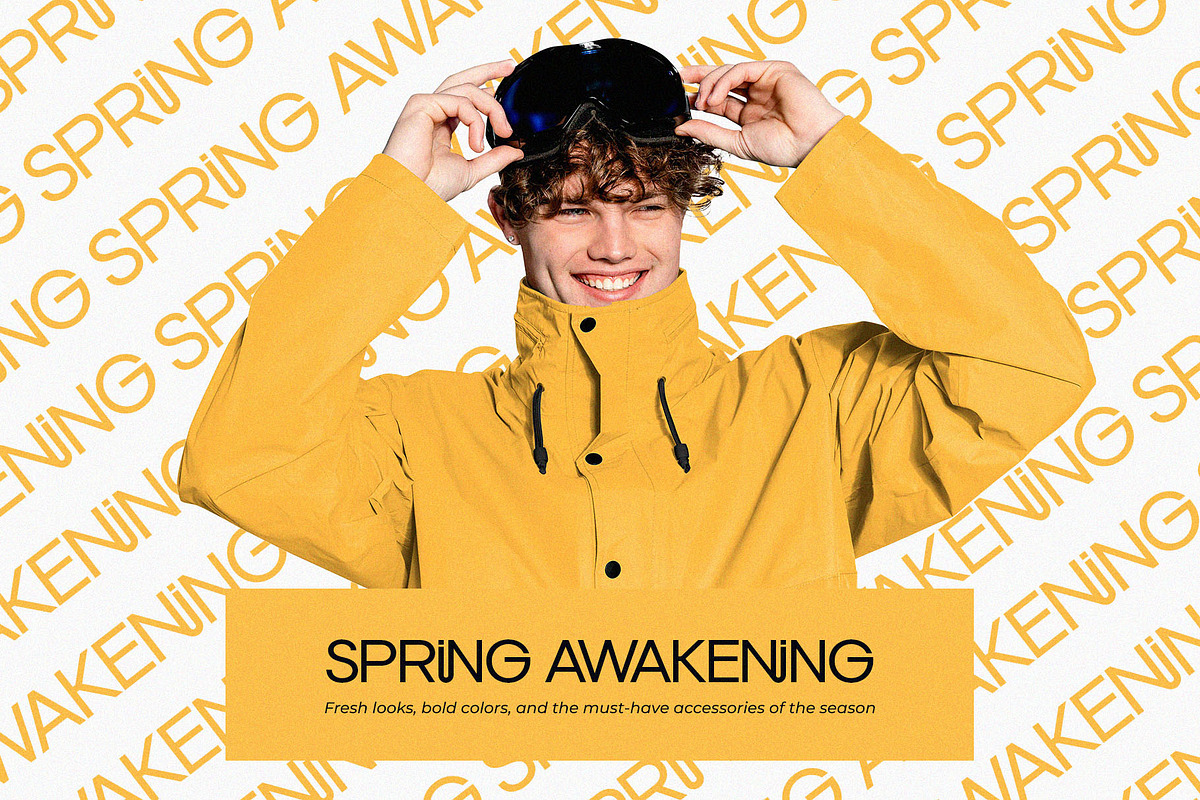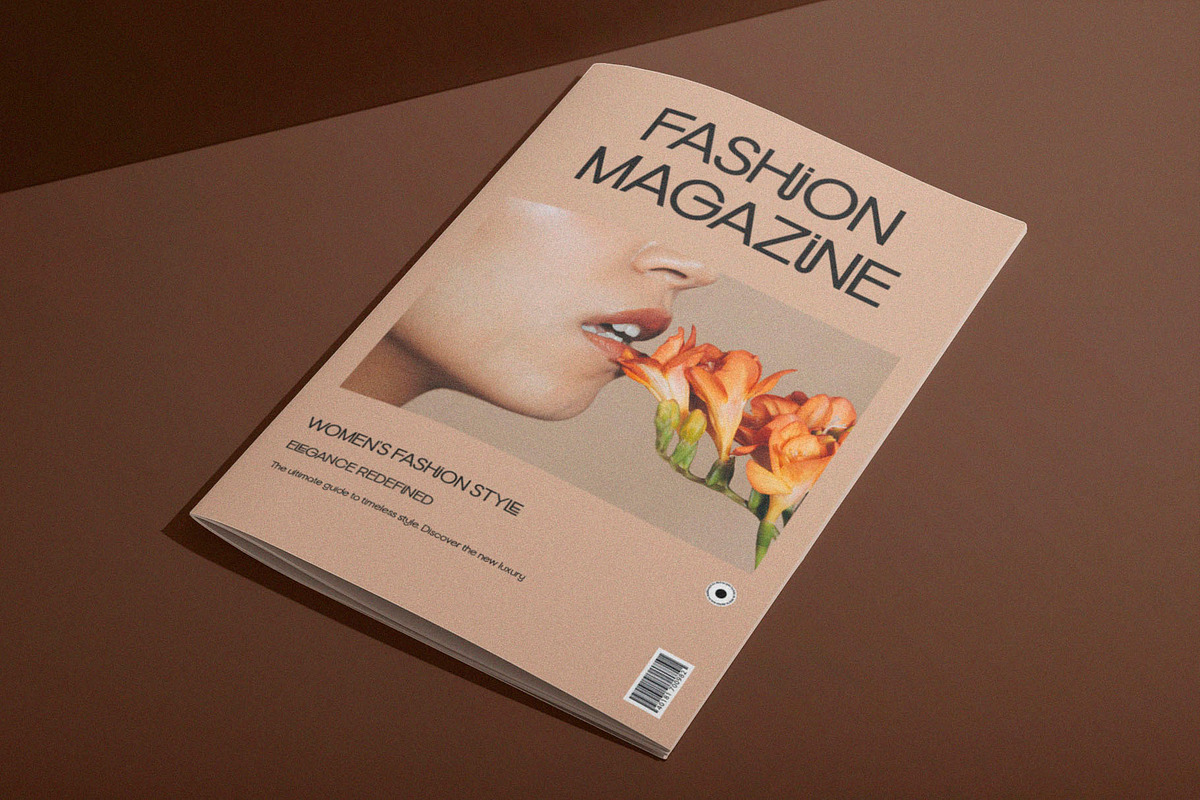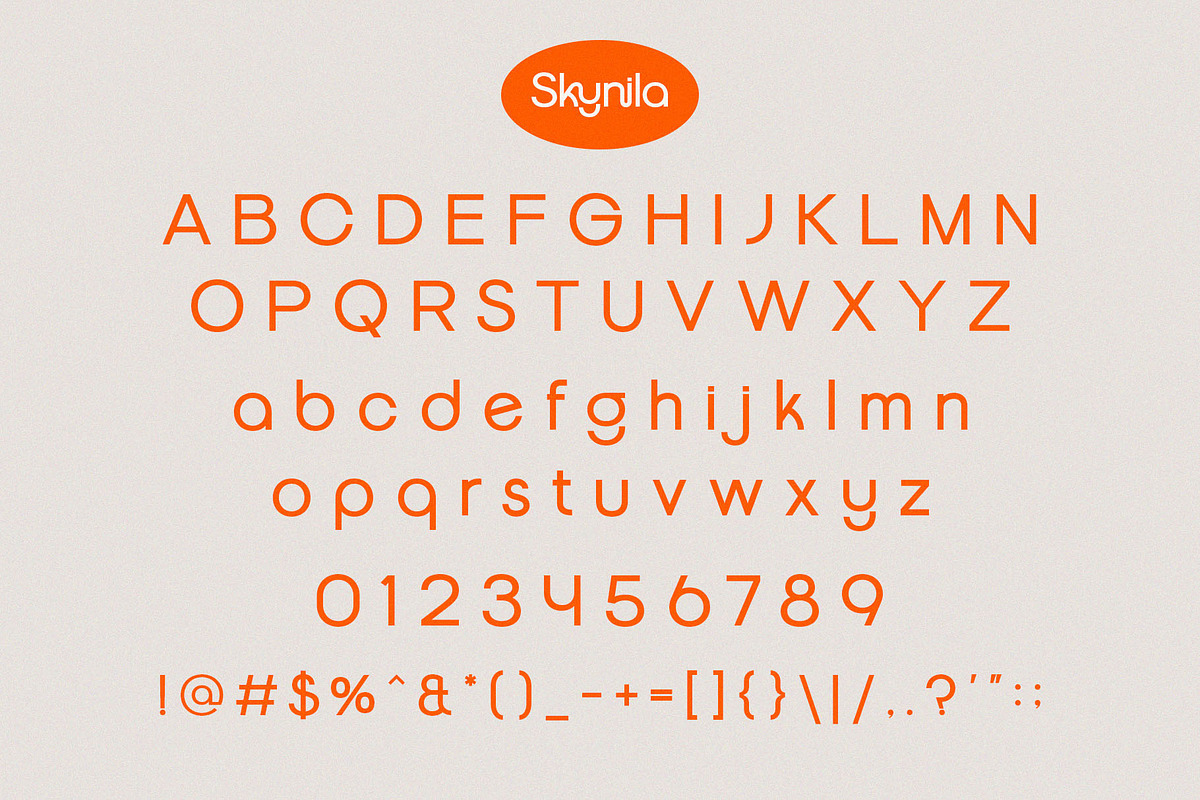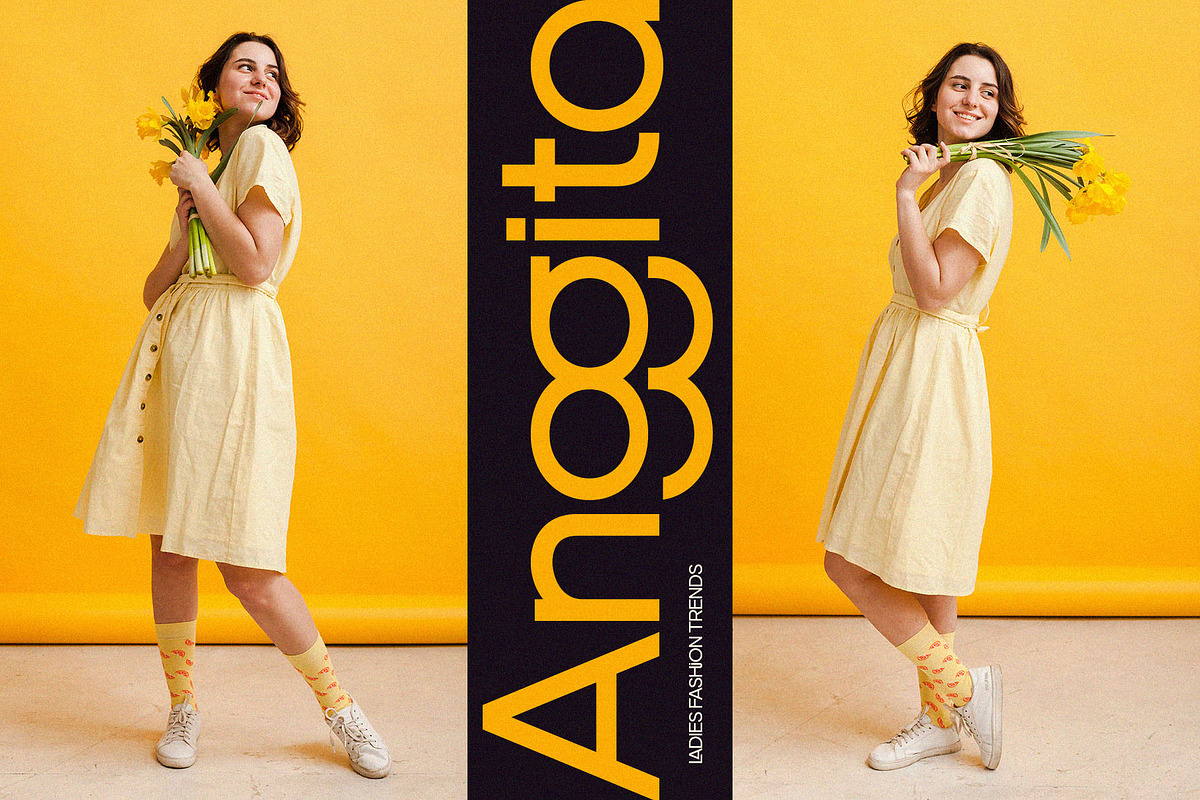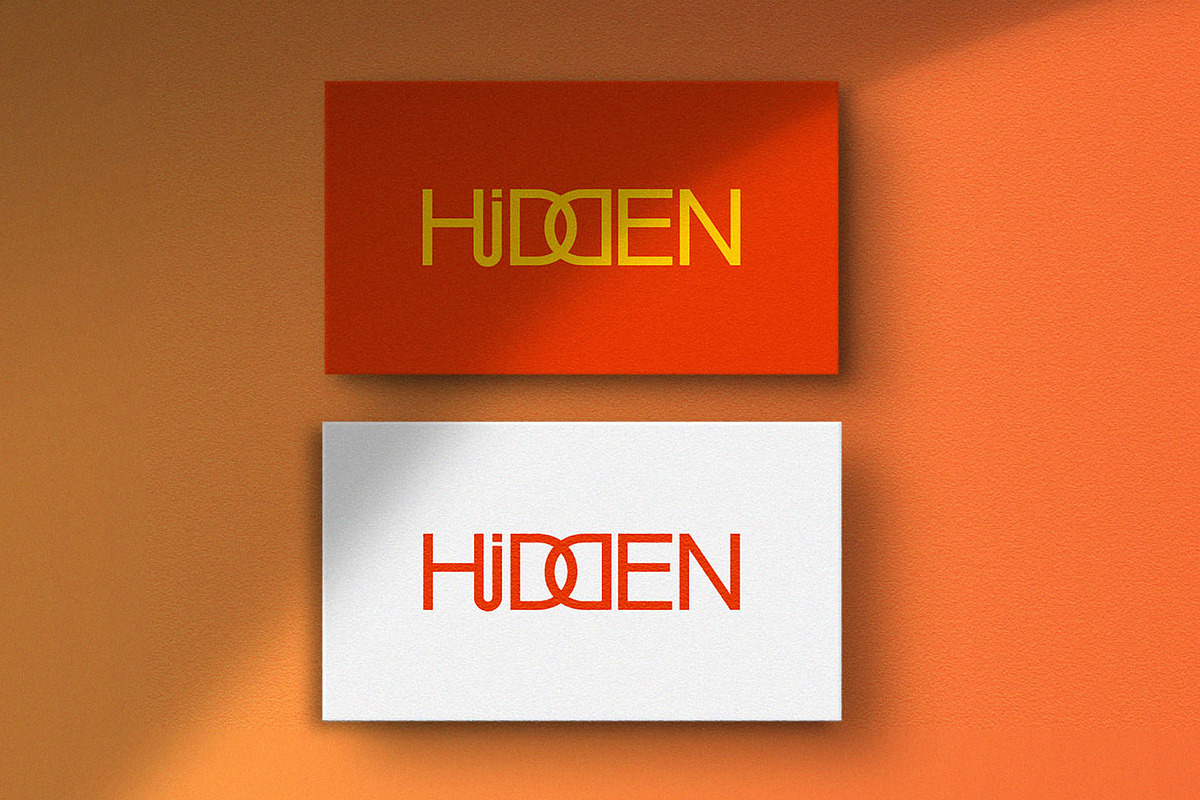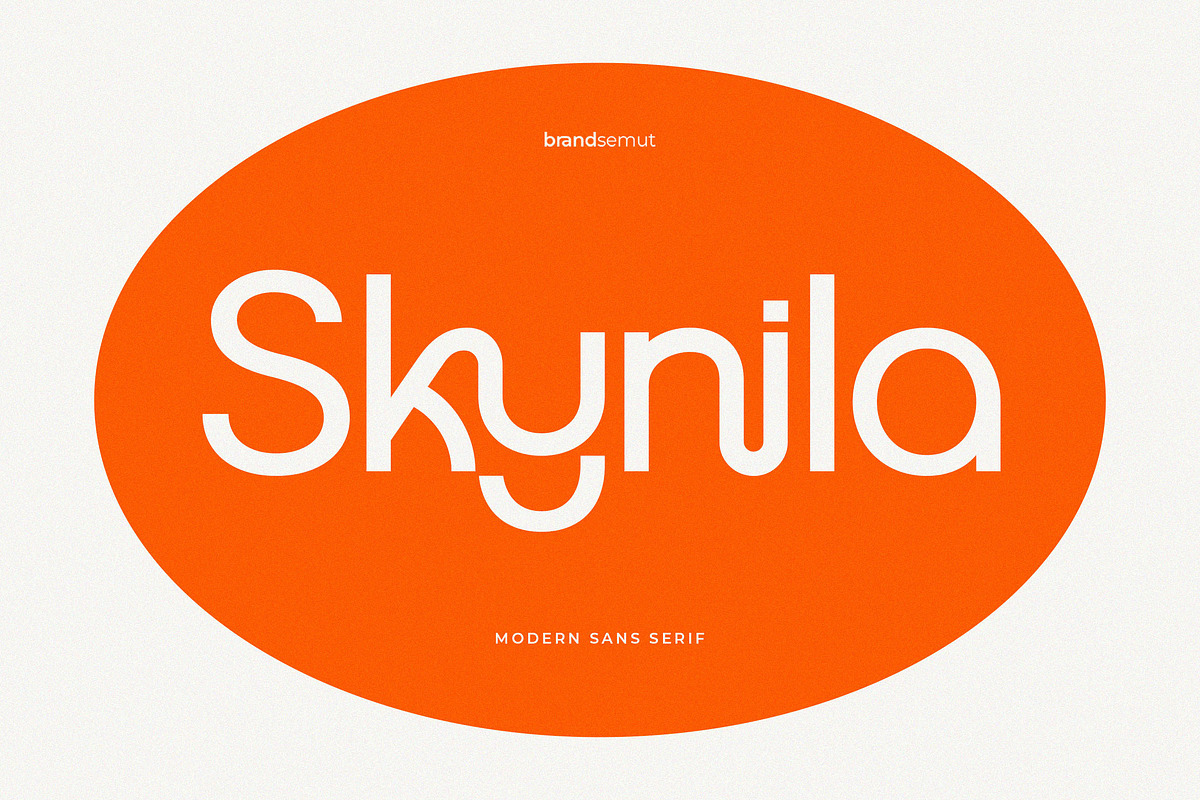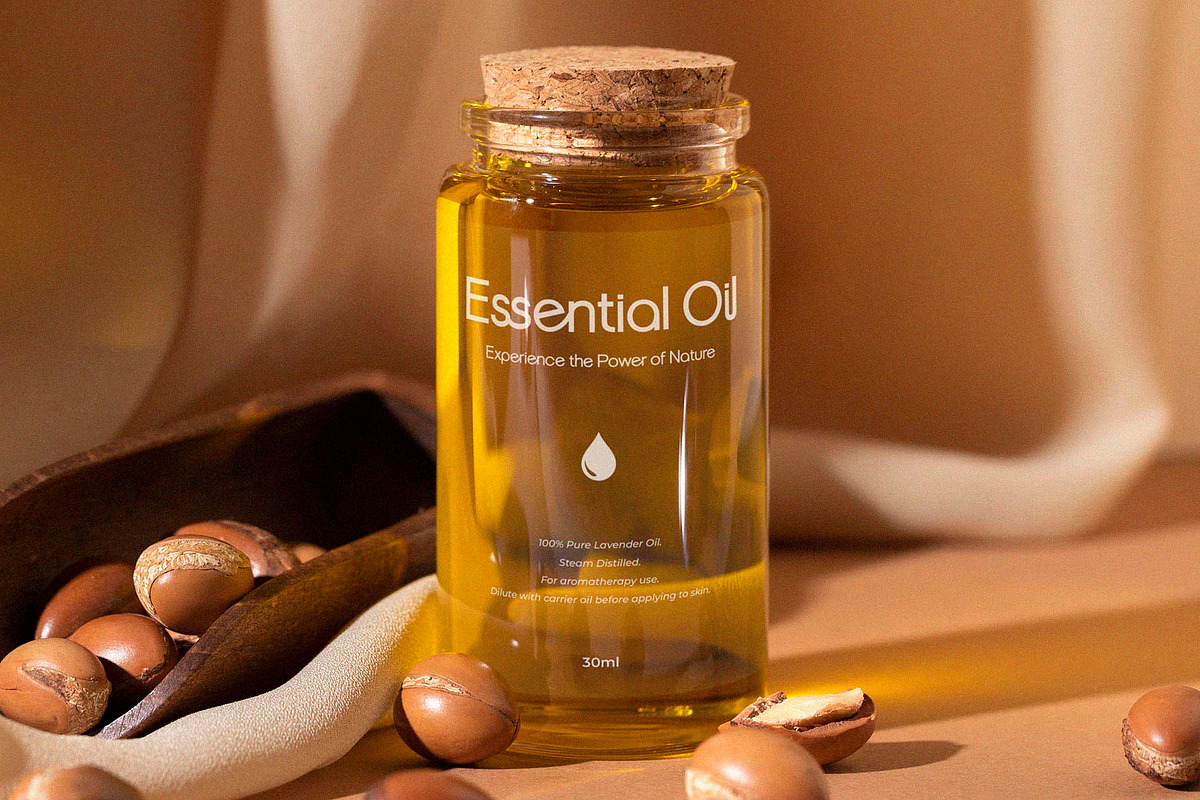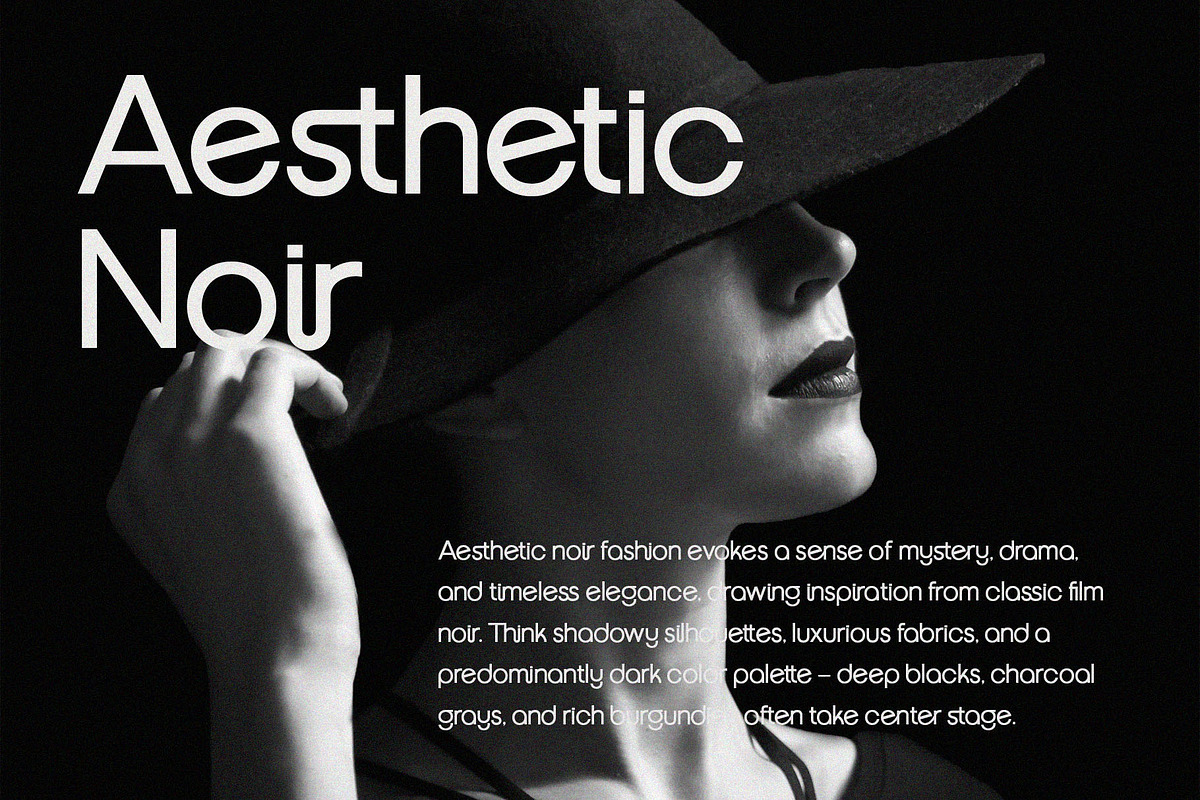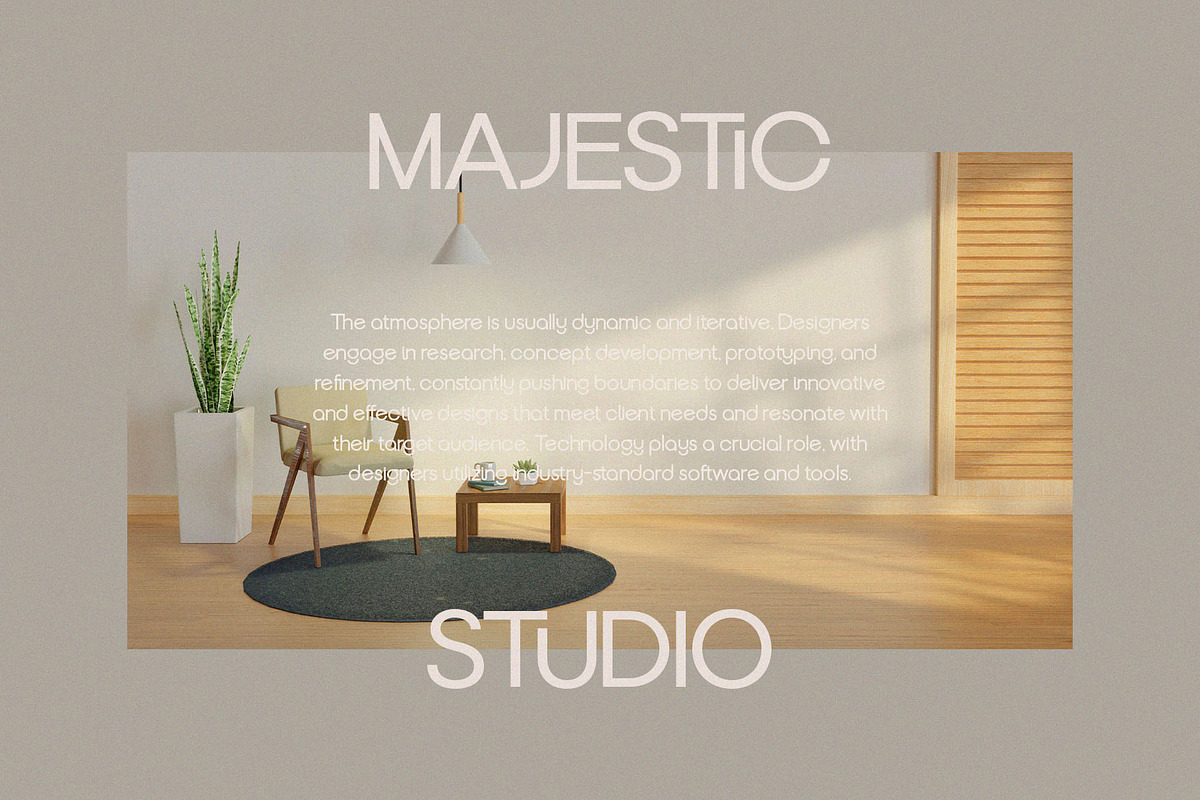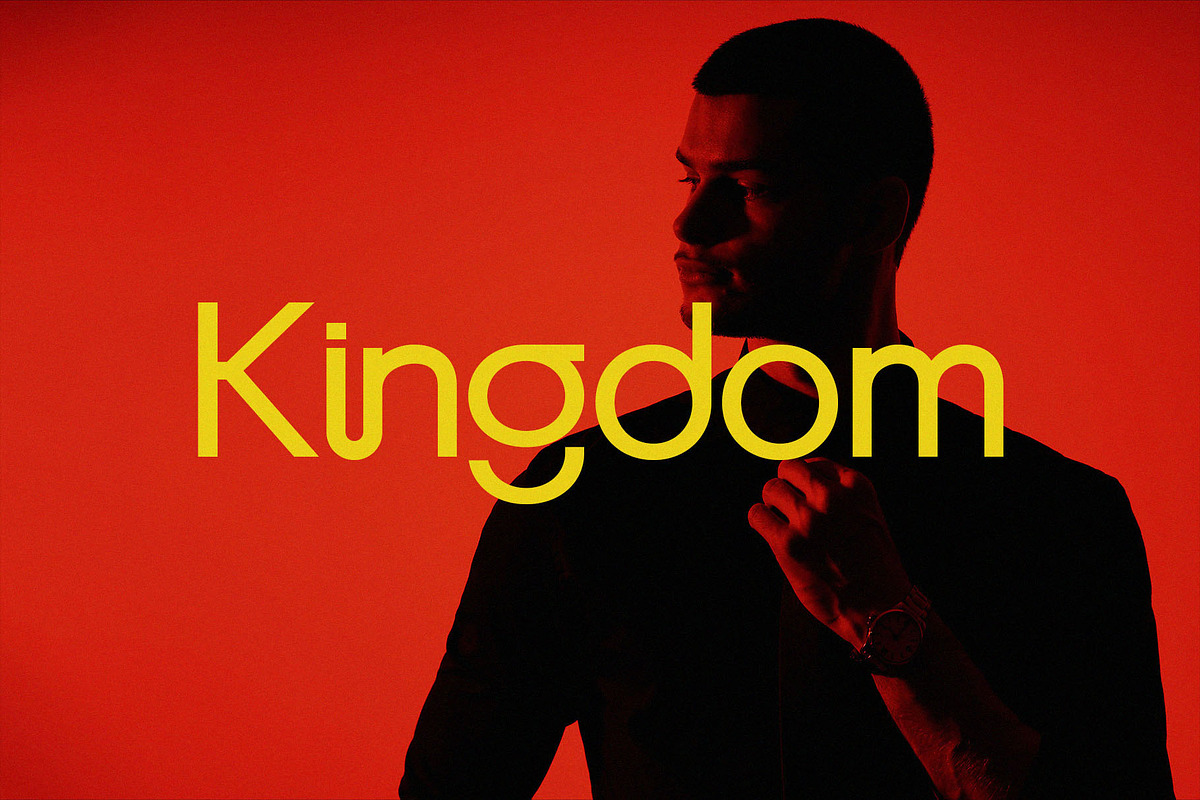
Skynila – Modern Display Sans Serif
Introducing Skynila Modern Display Sans Serif. Skynila is a modern and unique font, best used as a display for headings, logos, branding, magazines, product packaging and invitations. Skynila come with clean lines and smooth curves give any project an extra touch of class.